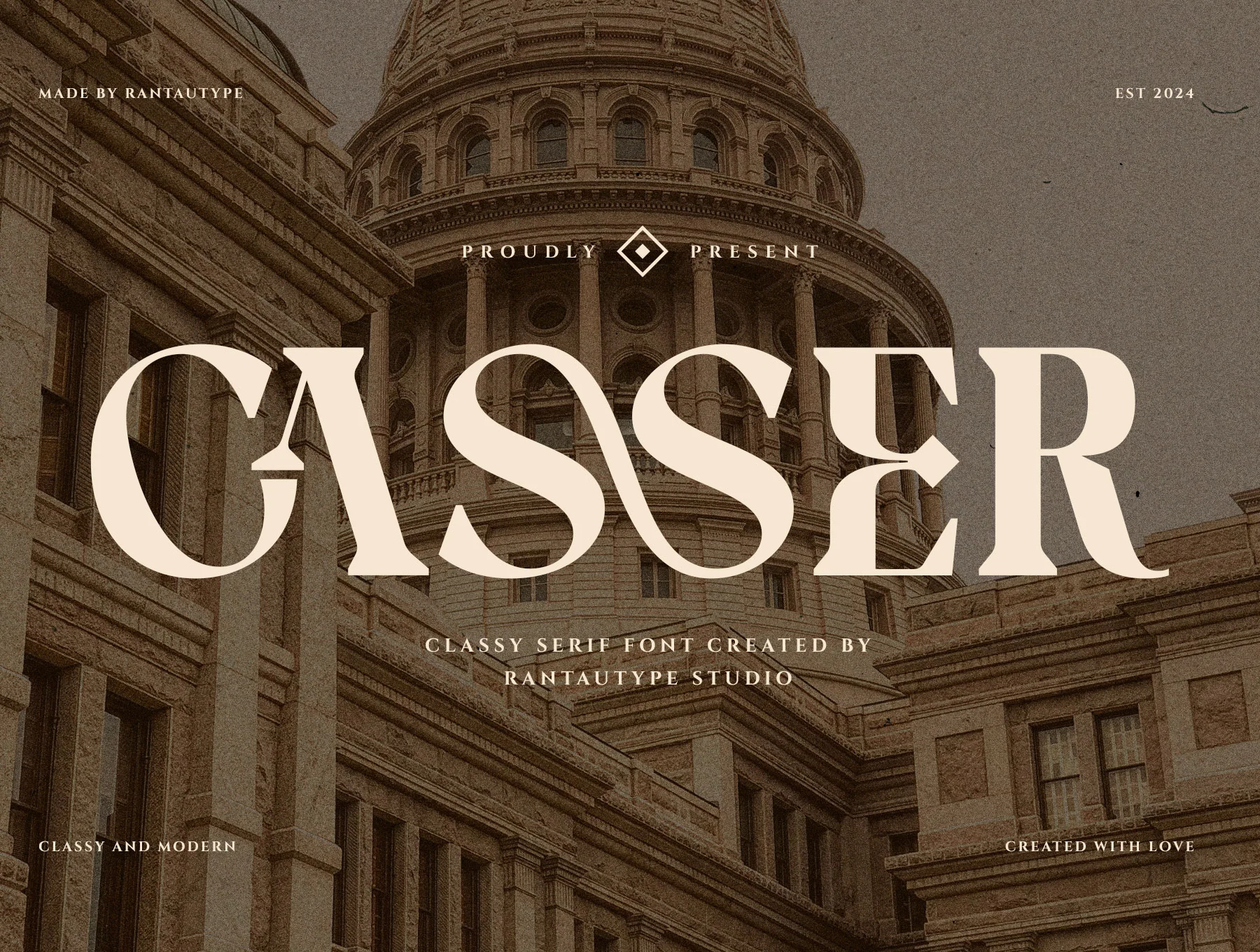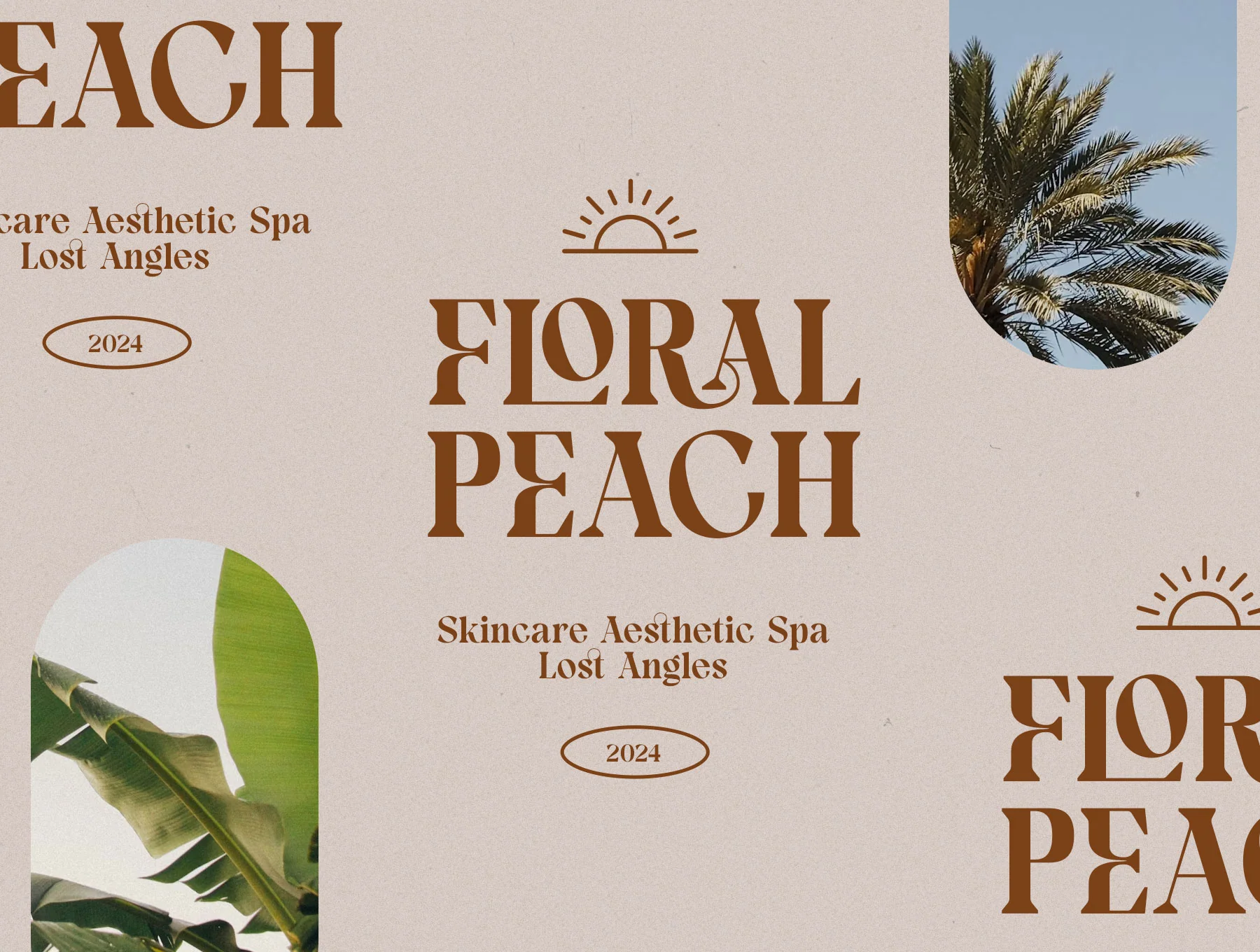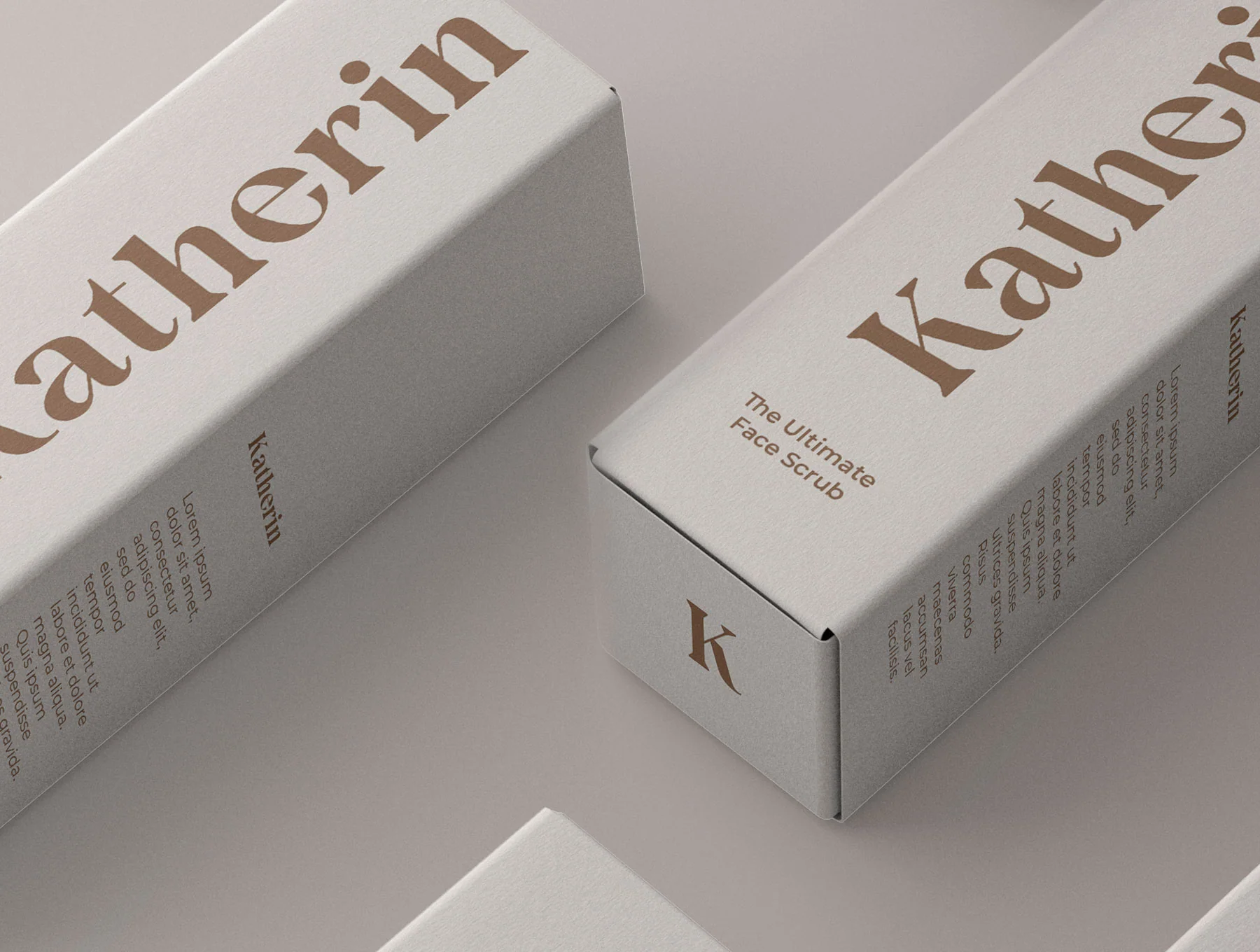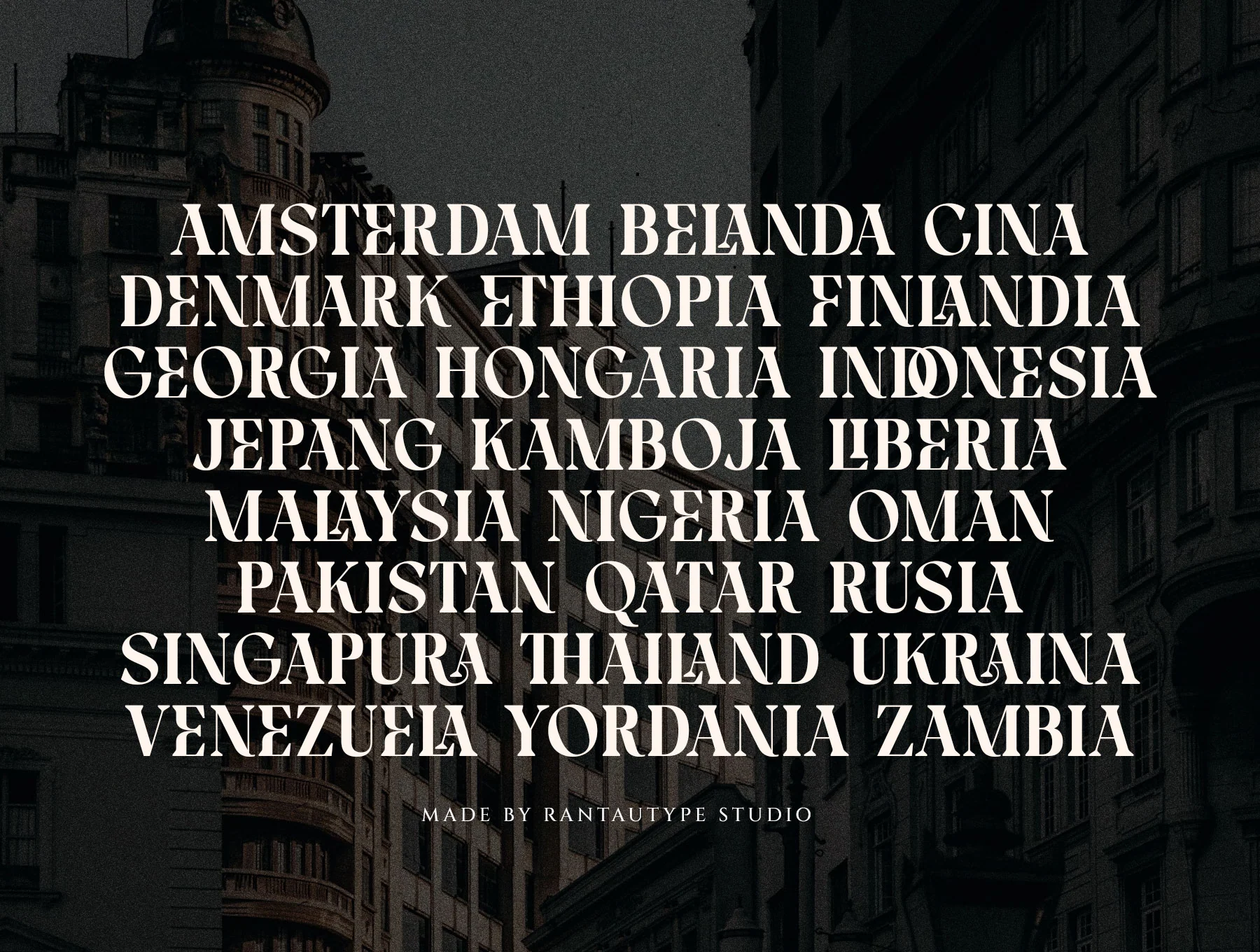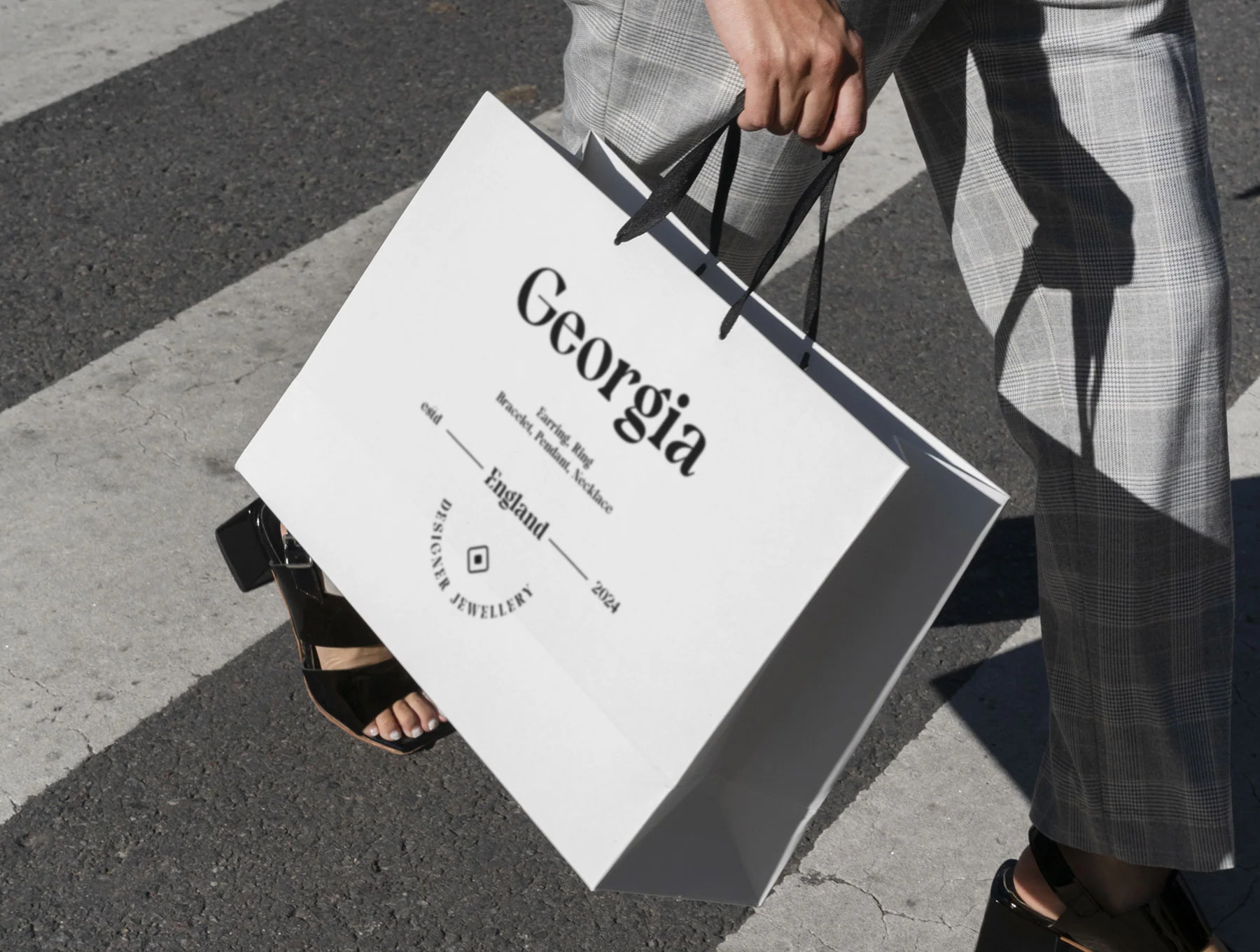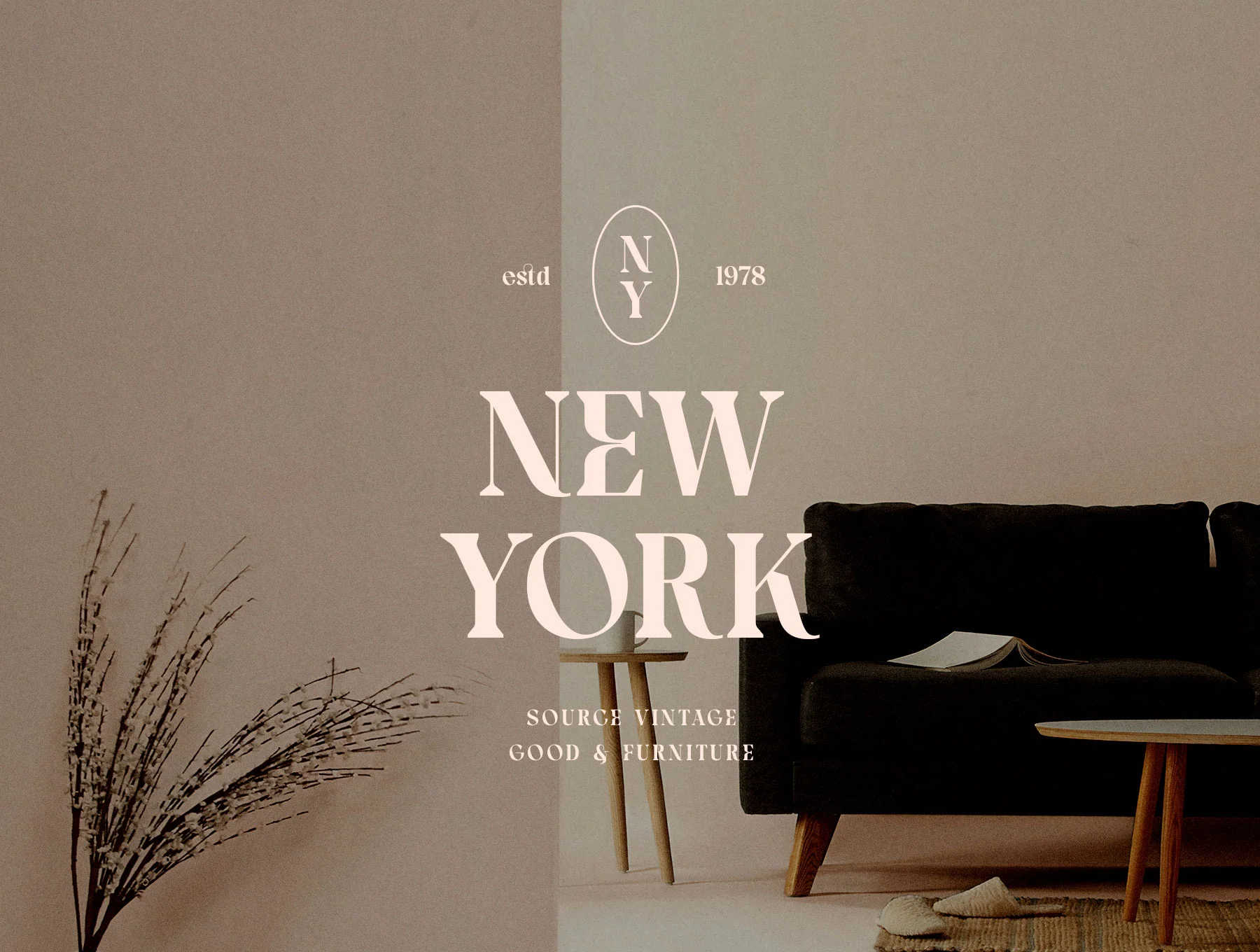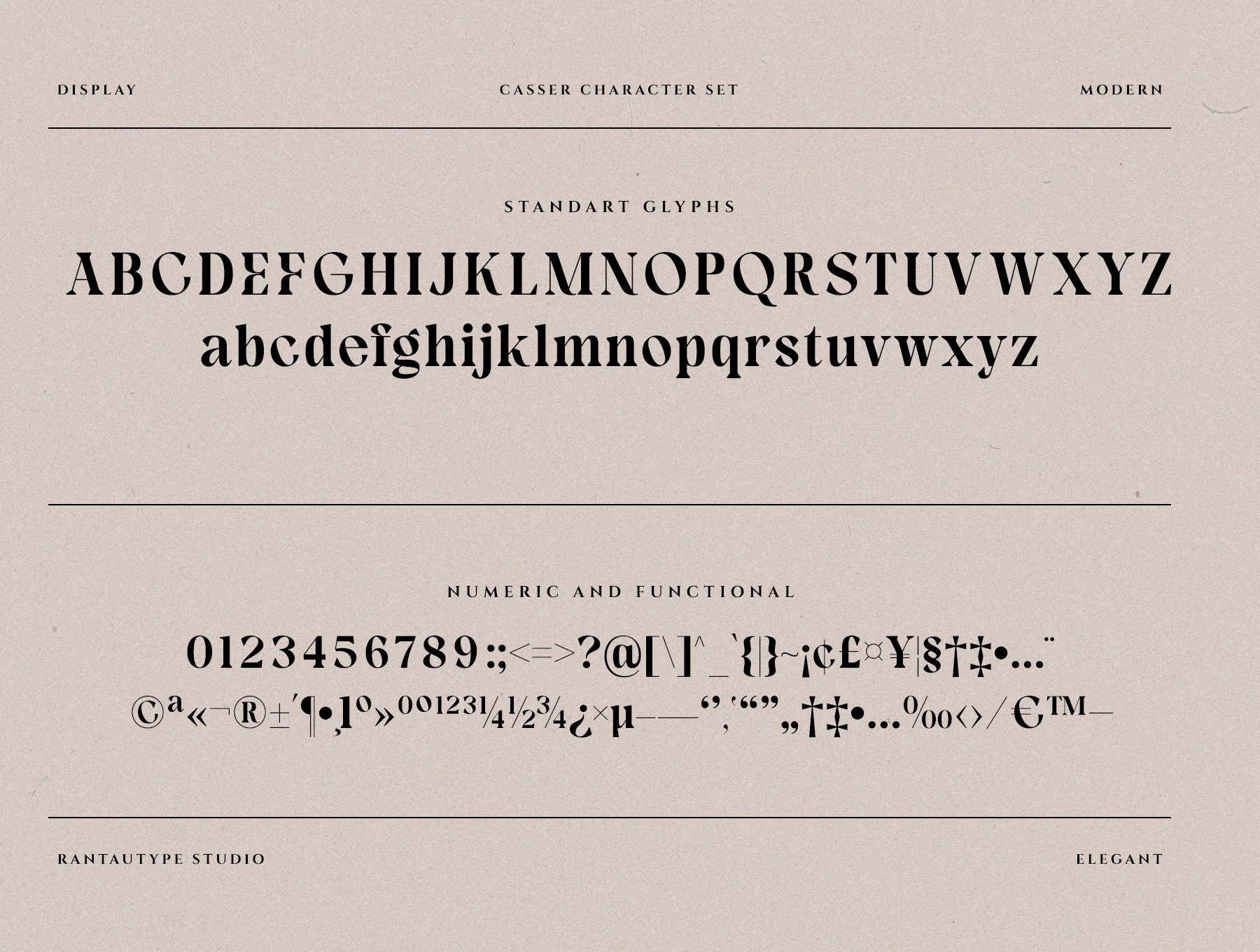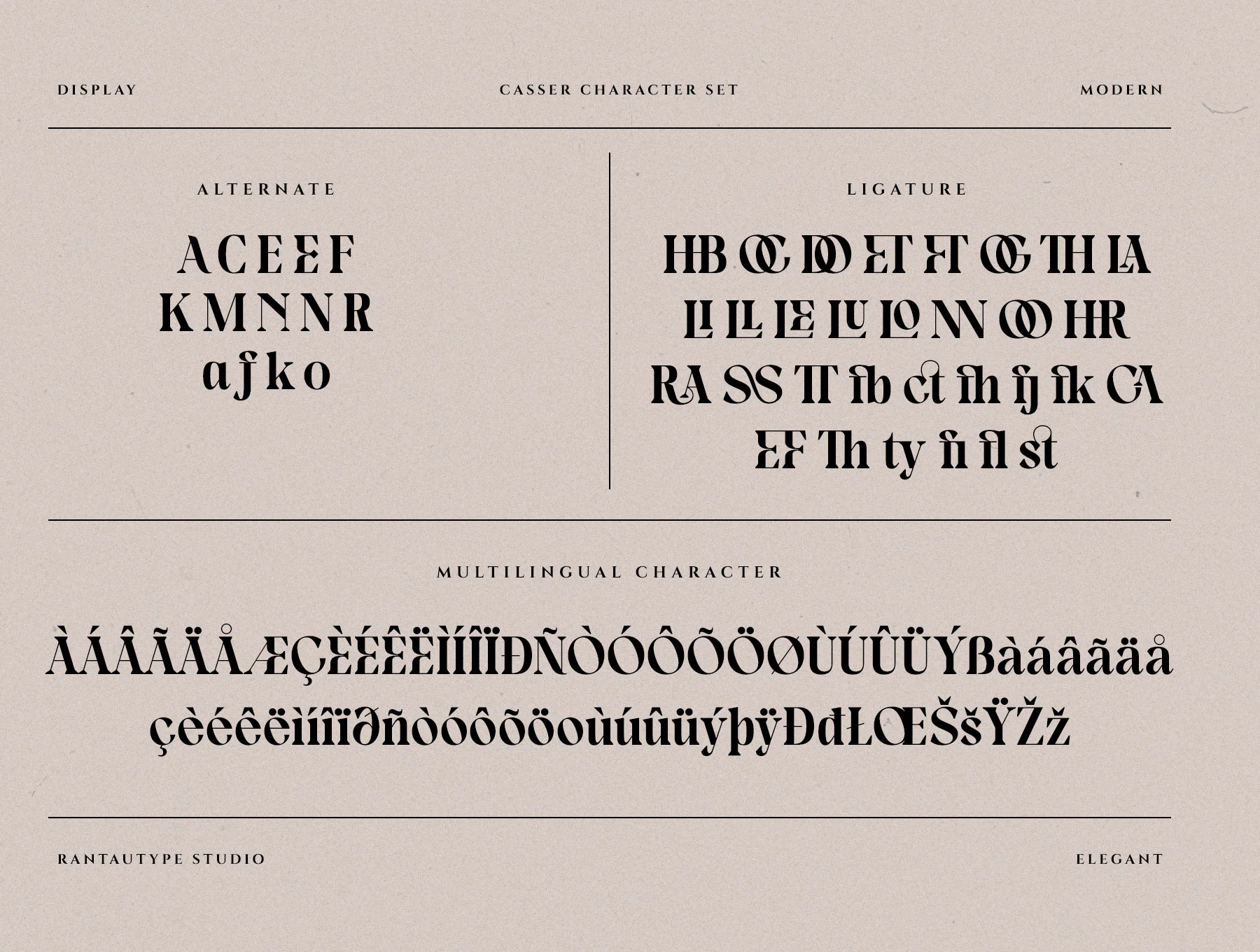
Casser Classy Serif Font
Elegant Casser Serif Font
Alternates and ligatures
Casser is a modern serif font with elegant curves and refined details, made for chic branding, editorial layouts, logos, invitations, labels, and more. Includes OTF/TTF/WOFF files, standard glyphs, numerals, alternates, ligatures, multilingual support, and works on PC, Mac, and major Adobe apps plus Word.